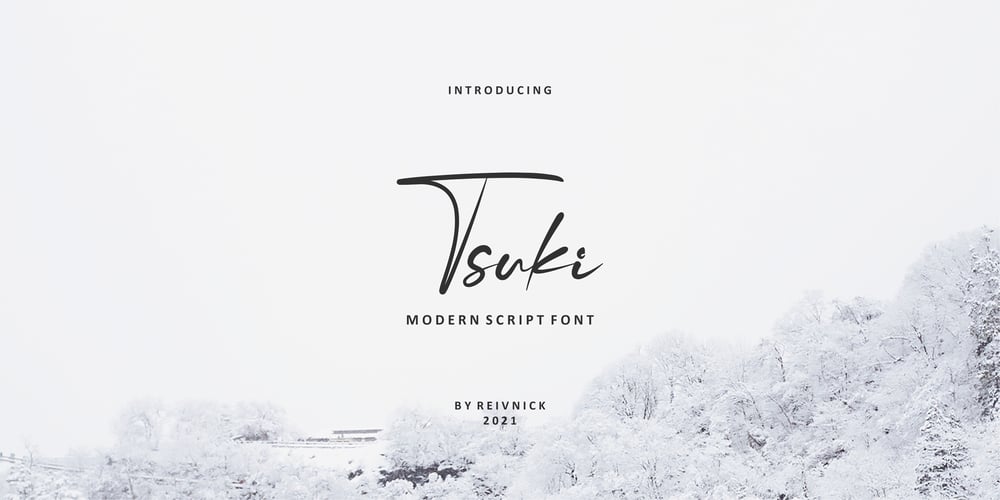
Tsuki Font Family was designed by Benediktus Hosni Iryandito and published by ReivNick. Tsuki contains 1 styles and family package options. Tsuki is a beautiful and elegant handwritten font. You can use them to create a logo or templates, invitations, blog, branding, marketing, book covers, magazines, advertising, stationery, logo design, and much more.